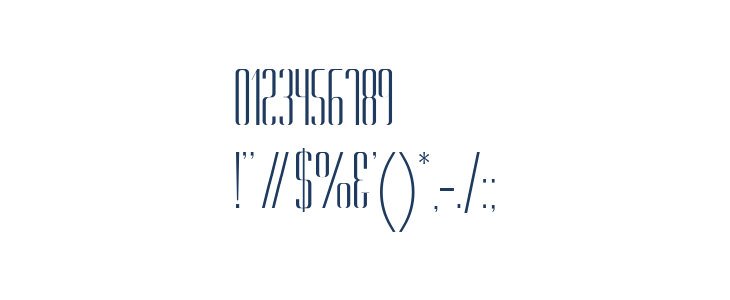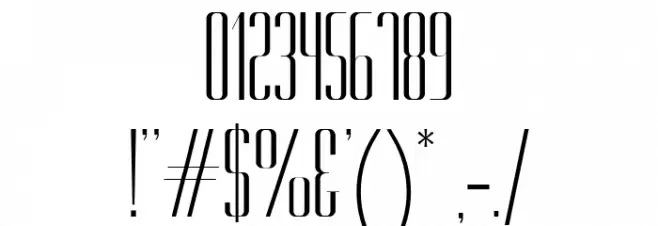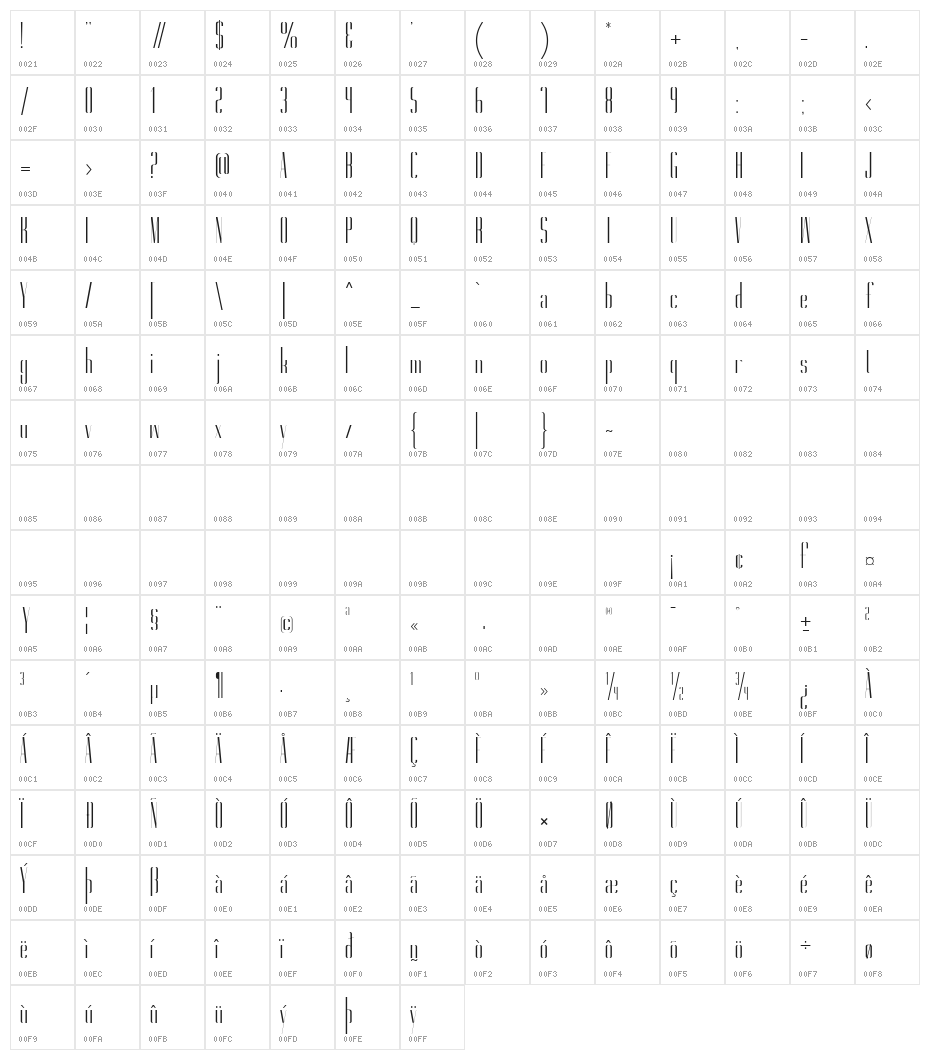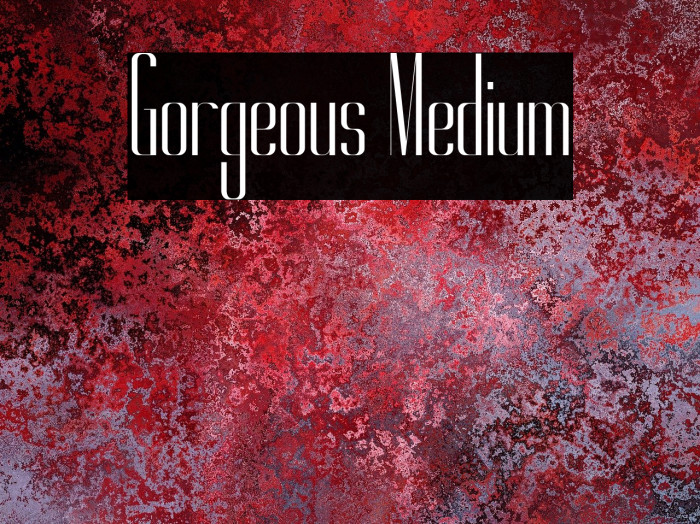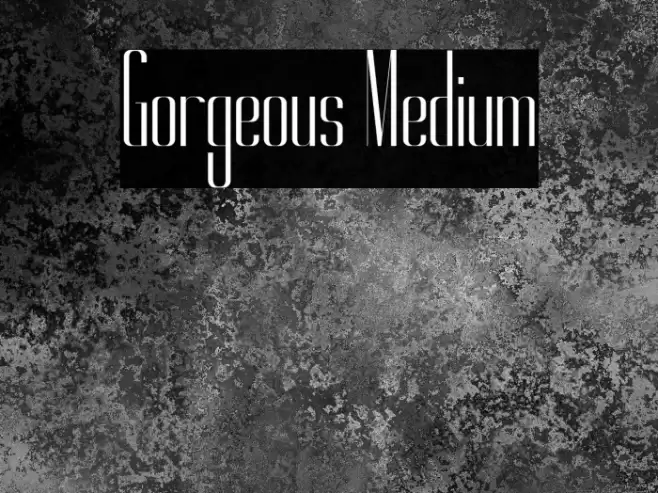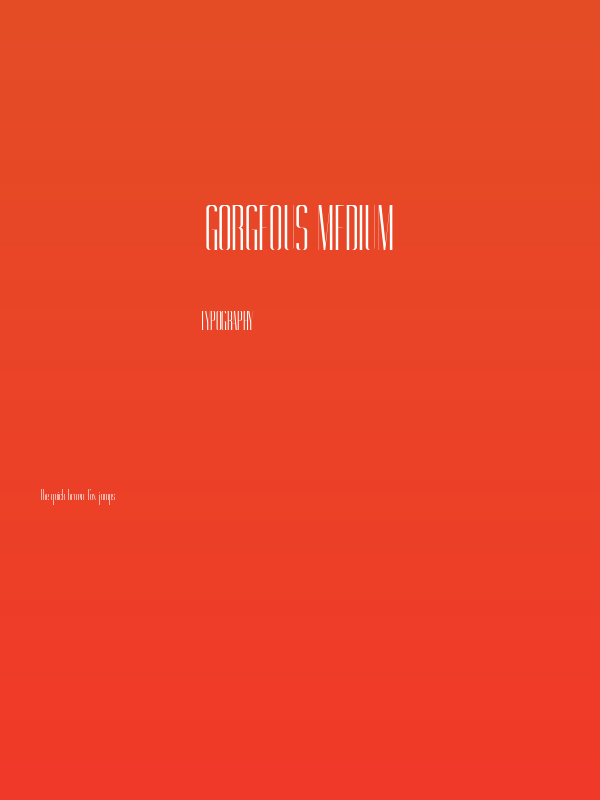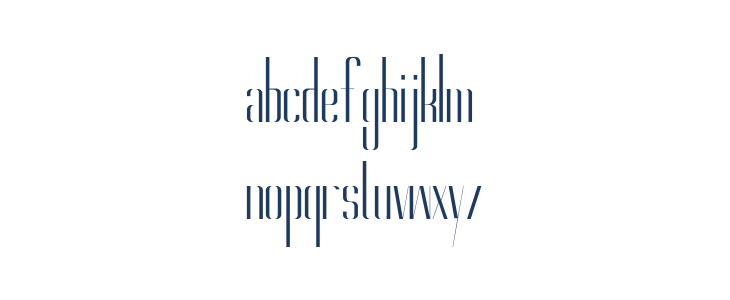
Gorgeous Medium Font
Gorgeous Medium Description
This font features a sleek and elongated design with a modern aesthetic. The characters are tall and narrow, giving it an elegant and sophisticated appearance. The uppercase letters are particularly striking, with sharp angles and clean lines that create a sense of refinement. The lowercase letters maintain this elegance, with a slightly more relaxed form that complements the uppercase. The numerals are consistent with the overall style, offering a uniform look across all characters. Special characters are designed with the same attention to detail, ensuring a cohesive appearance throughout.
| Proposed Projects | Ideal for fashion magazines, luxury branding, high-end product packaging, and modern editorial layouts. |